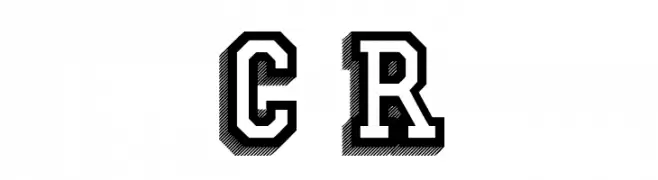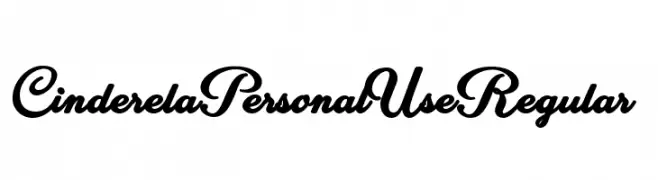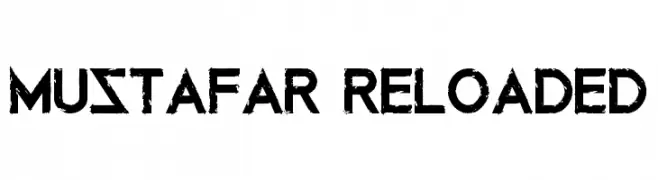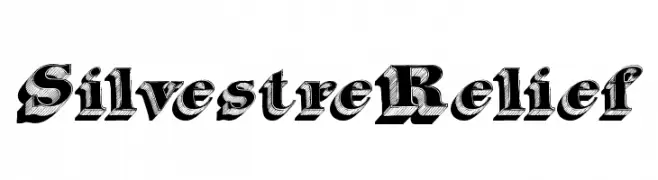
( Zack Lewis - www.foxtrotvisuals.com )
A bold, high-contrast font with angular serifs and a condensed structure.
( imagex - www.imagex-fonts.com )
A bold, three-dimensional collegiate-style font with strong outlines and shadow effects.
( imagex - www.imagex-fonts.com )
A bold, distressed collegiate-style font with a vintage, worn effect.
( imagex - www.imagex-fonts.com )
A bold, three-dimensional serif font with decorative shadow effects.
( www.sparkybuddy.com - David Pustansky - www.sparkybuddy.com/fonts )
A playful font made entirely of fruit illustrations, perfect for creative projects.
( ArtsyLady - artsylady.8m.com/fonts/fontpage.htm )
An elegant script font with ornate flourishes and a refined style.
( Billy Argel - billyargel.com/ )
An elegant, bold cursive script with intricate loops and medium contrast.
( Chris Vile - www.chrisvile.com )
A bold, distressed font with a rugged, geometric style.